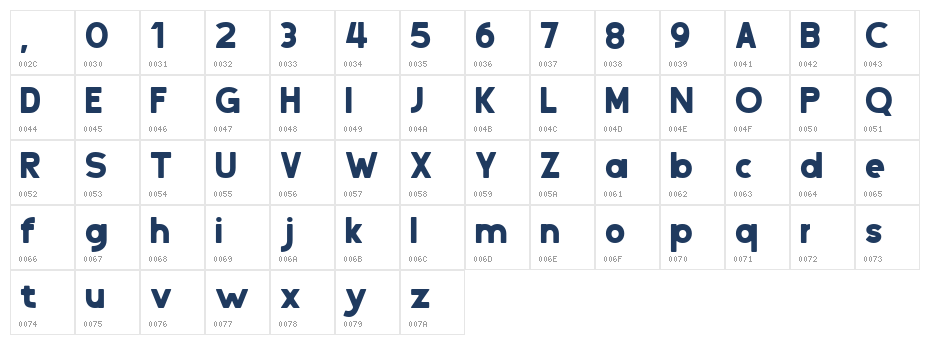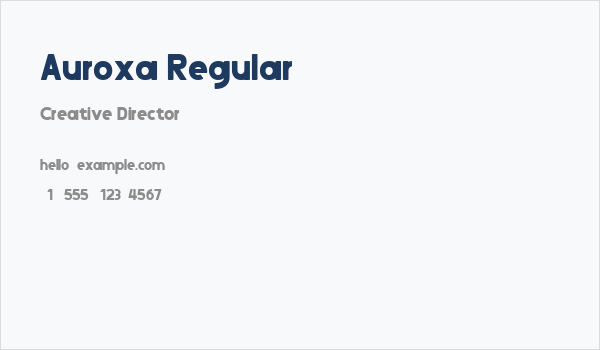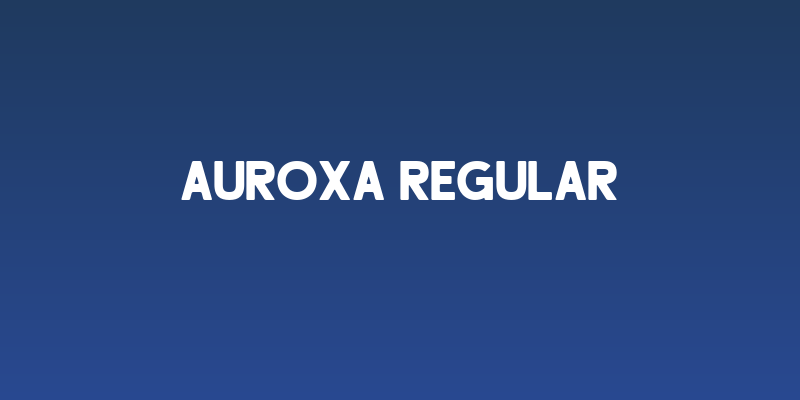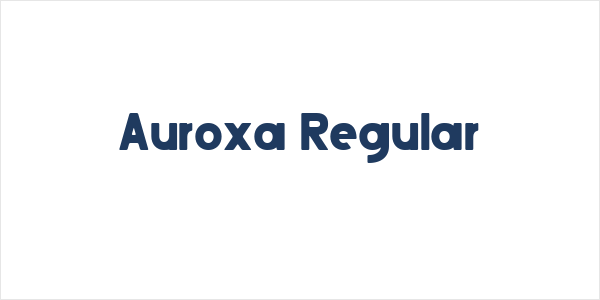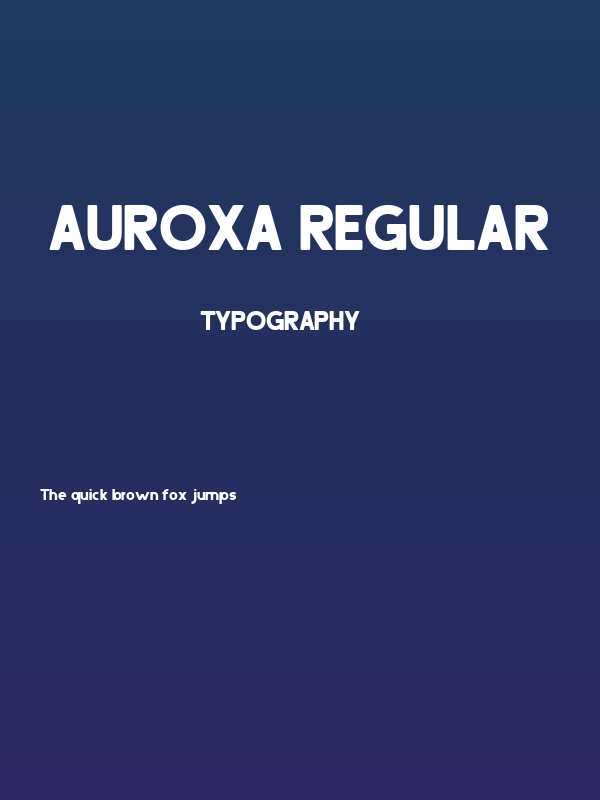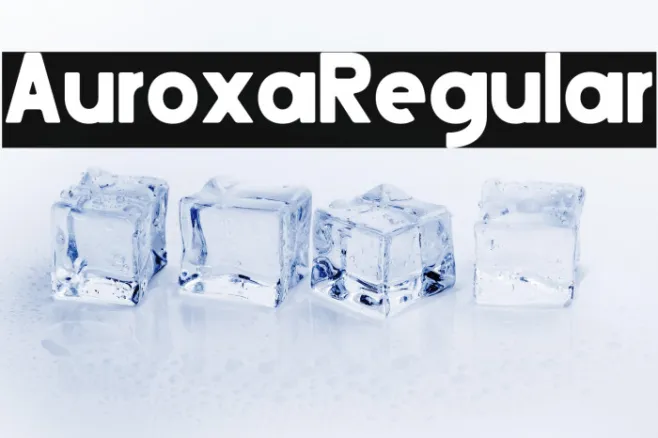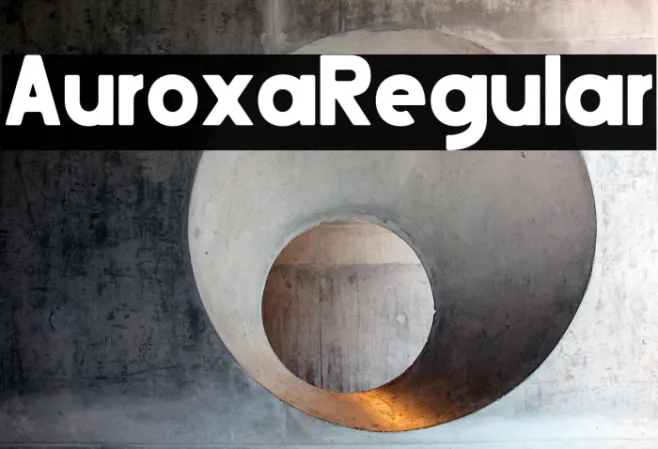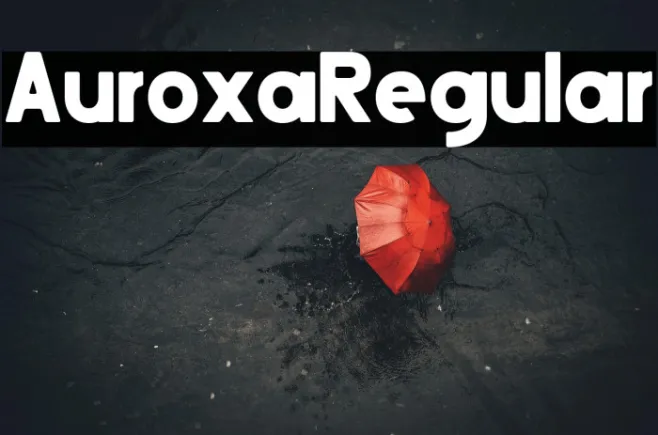
Auroxa Regular Font
Auroxa Regular Description
Bold, rounded, sans-serif font with uniform stroke width and friendly appearance.
| Overall Style | Modern, Friendly |
| Use Case | Headlines, Display text, Logos |